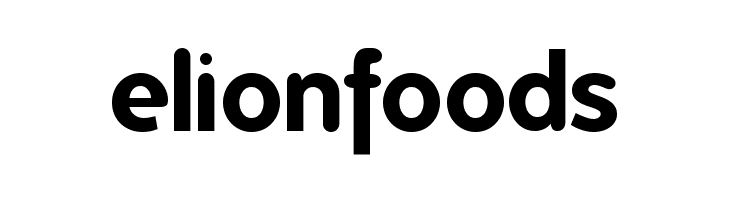
Folks-Bold Font
Font by Manfred Klein - manfred-klein.ina-mar.com
A bold, rounded sans-serif font with smooth curves and uniform strokes.
Folks-Heavy Font
Font by Manfred Klein - manfred-klein.ina-mar.com
A bold, rounded font with a playful and modern aesthetic.
FolksShades Font
Font by Manfred Klein - manfred-klein.ina-mar.com
A bold, playful font with a 3D shadow effect, perfect for attention-grabbing designs.
Folk-solid Font
Font by www.marcelomagalhaes.net
A bold, solid font with a vintage yet modern appeal, ideal for impactful designs.
Folklore Font
A bold, geometric font with thick, uniform strokes for a modern look.
That's Font Folks! Italic Font
Font by Jayvee D. Enaguas - grandchaos9000.deviantart.com
A playful and whimsical script font with smooth, flowing curves and elegant loops.
FolksBlack Font
Font by Manfred Klein - manfred-klein.ina-mar.com
A bold, rounded font with a friendly and approachable style.
Folks-Normal Font
Font by Manfred Klein - manfred-klein.ina-mar.com
A modern sans-serif font with geometric shapes and uniform stroke width.
Folks-Light Font
Font by Manfred Klein - manfred-klein.ina-mar.com
A clean, modern sans-serif font with uniform strokes and geometric influence.
Folktale Font
A hand-drawn, textured font with a sketch-like appearance and bold strokes.
Rapscallion Font
Font by Ryan Splint
A bold, gothic-style font with jagged edges and decorative flourishes, perfect for dramatic themes.
Folkard Font
Font by The Scriptorium - Dave Nalle
A whimsical, decorative font with medieval and fantasy influences.
FolksCircleNegative Font
A bold, modern font with characters in white on black circles.
FolksXX Heavy Font
Font by Manfred Klein - manfred-klein.ina-mar.com
A bold, playful font with thick, rounded characters.
anti folk Font
A bold, geometric font with high contrast and unique character designs.
Sunshine Folk Regular Font
Lara Russell
A playful, handwritten font with bold, rounded letters and a casual style.
FolksCirclePositive Font
A bold, sans-serif font with characters enclosed in circles, offering a playful and modern look.
Folk-shadow Font
Font by www.marcelomagalhaes.net
A bold, playful font with a shadow effect, perfect for eye-catching designs.
Folk outline Font